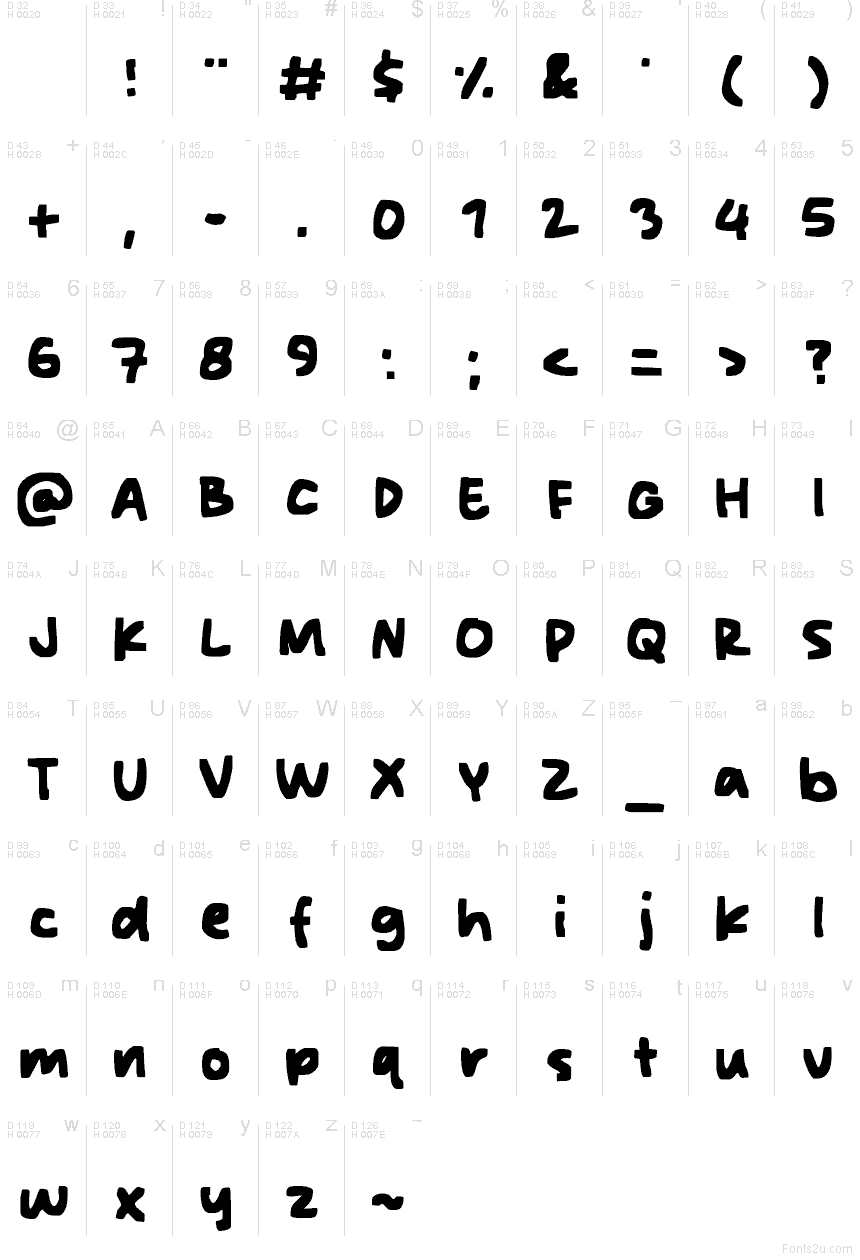
Rocky Block
Rocky Block font by Origin Type is a free brush font. Its chunky, inky strokes and softly squared edges feel like they were painted with a thick marker, then tightened just enough to stay readable at a glance. The letters bounce with a casual rhythm that feels fun and energetic, giving headlines an easy, hand-drawn confidence without slipping into messy or chaotic.
This free font shines on kids’ book covers, playful logos, YouTube thumbnails, game titles, stickers, and bold poster work where you want loud, friendly impact. Using Rocky Block at larger sizes lets the blobby curves and dense black shapes really punch through busy backgrounds. For supporting text, pair it with a simple geometric sans typeface to keep the focus on Rocky Block’s bold, brushy personality.